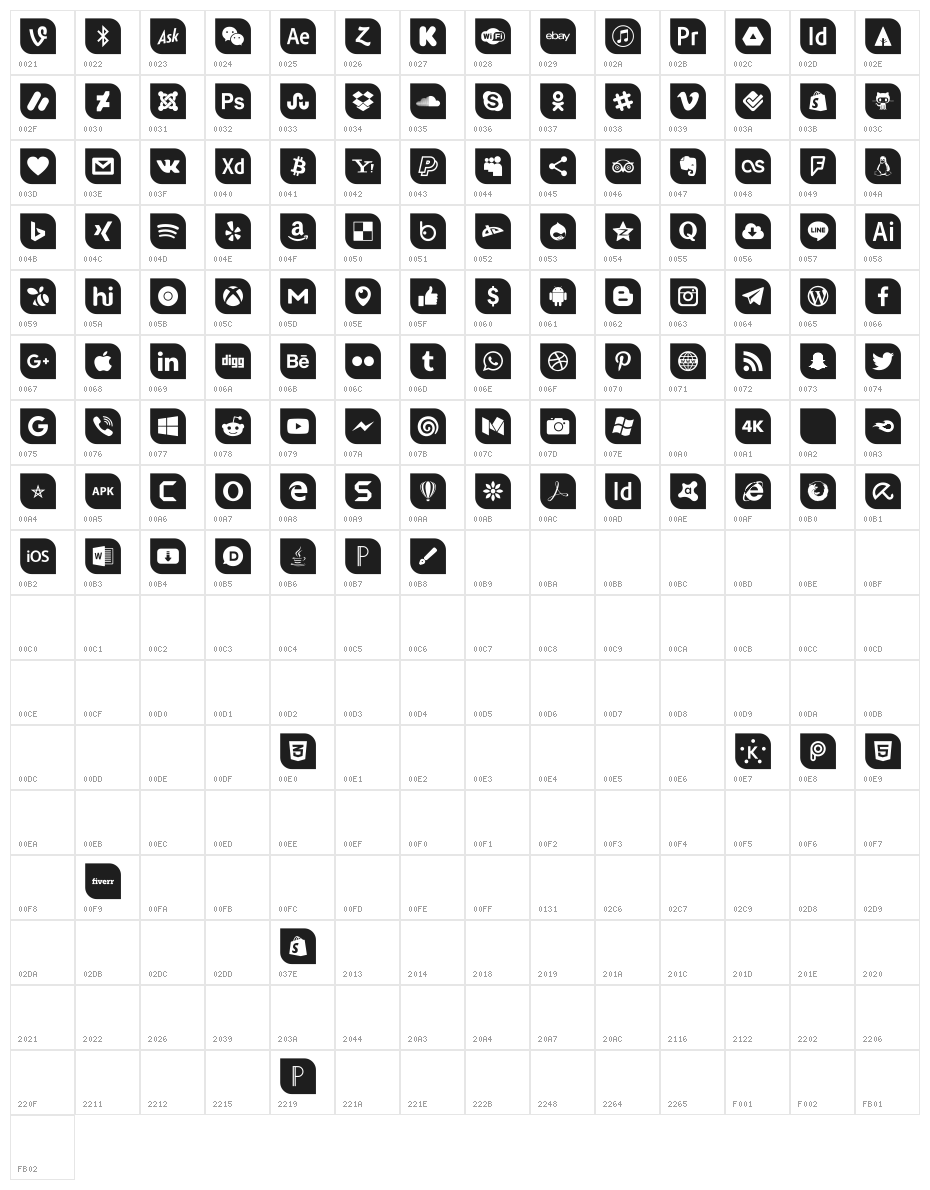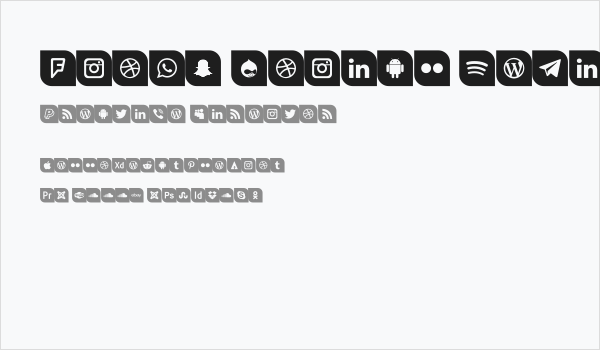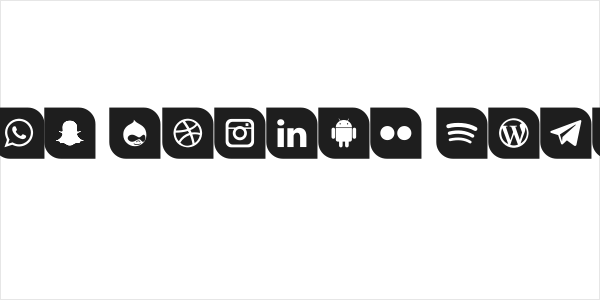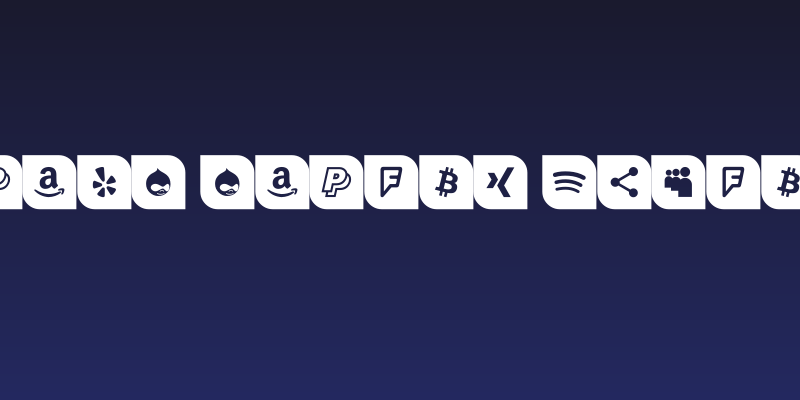
Icons Social Media 1 Font
Icons Social Media 1 Description
A collection of monochrome social media and technology brand icons, each placed within a solid black rounded square or circle. The icons are simplified, flat, and use white for the symbol on a black background, providing strong visual contrast and easy recognizability.
| Overall Style | Modern, Minimalist |
| Use Case | Icons, UI elements, navigation, branding |
| Proposed Projects | Websites, mobile apps, presentations, social media graphics, UI/UX mockups, branding kits. |